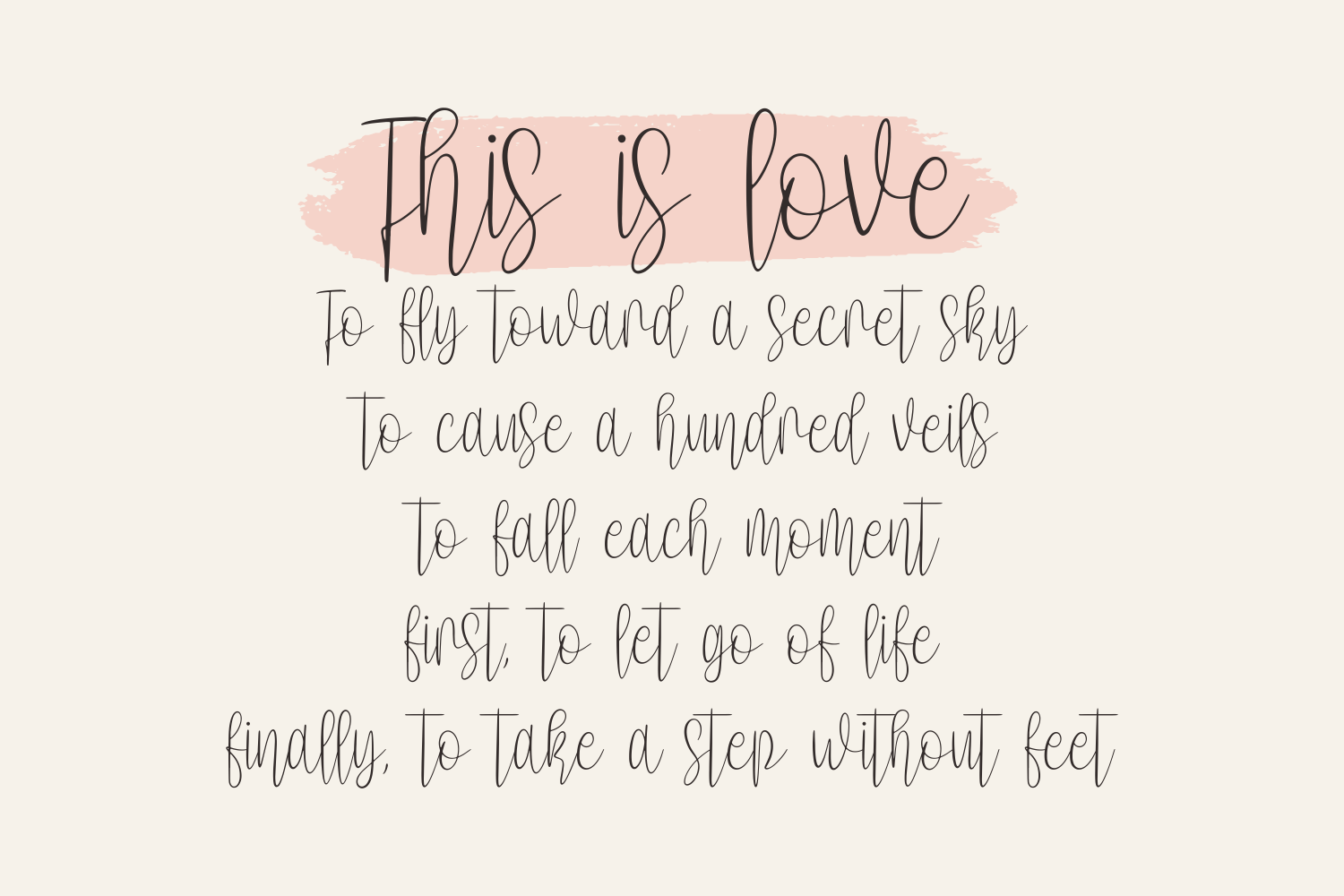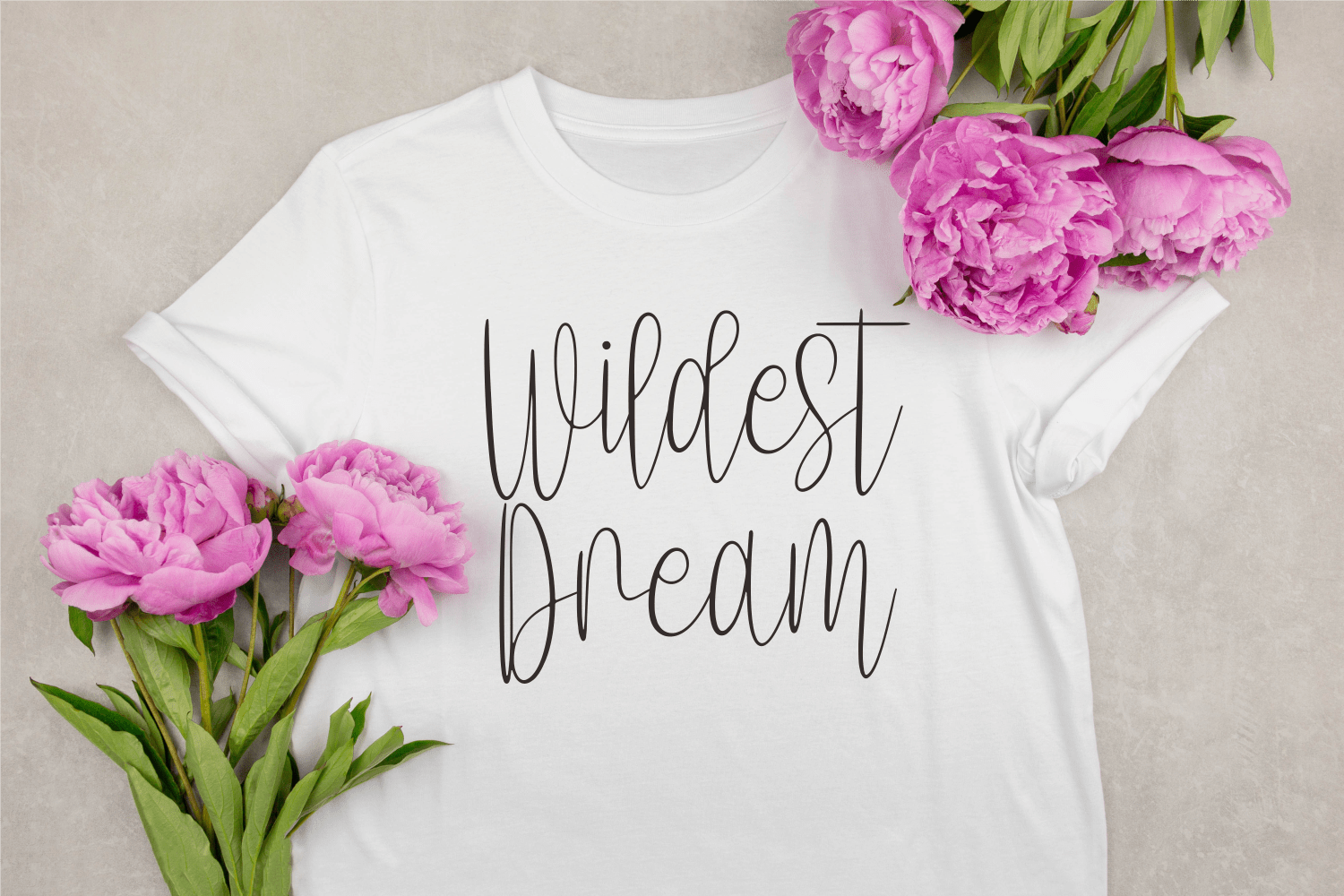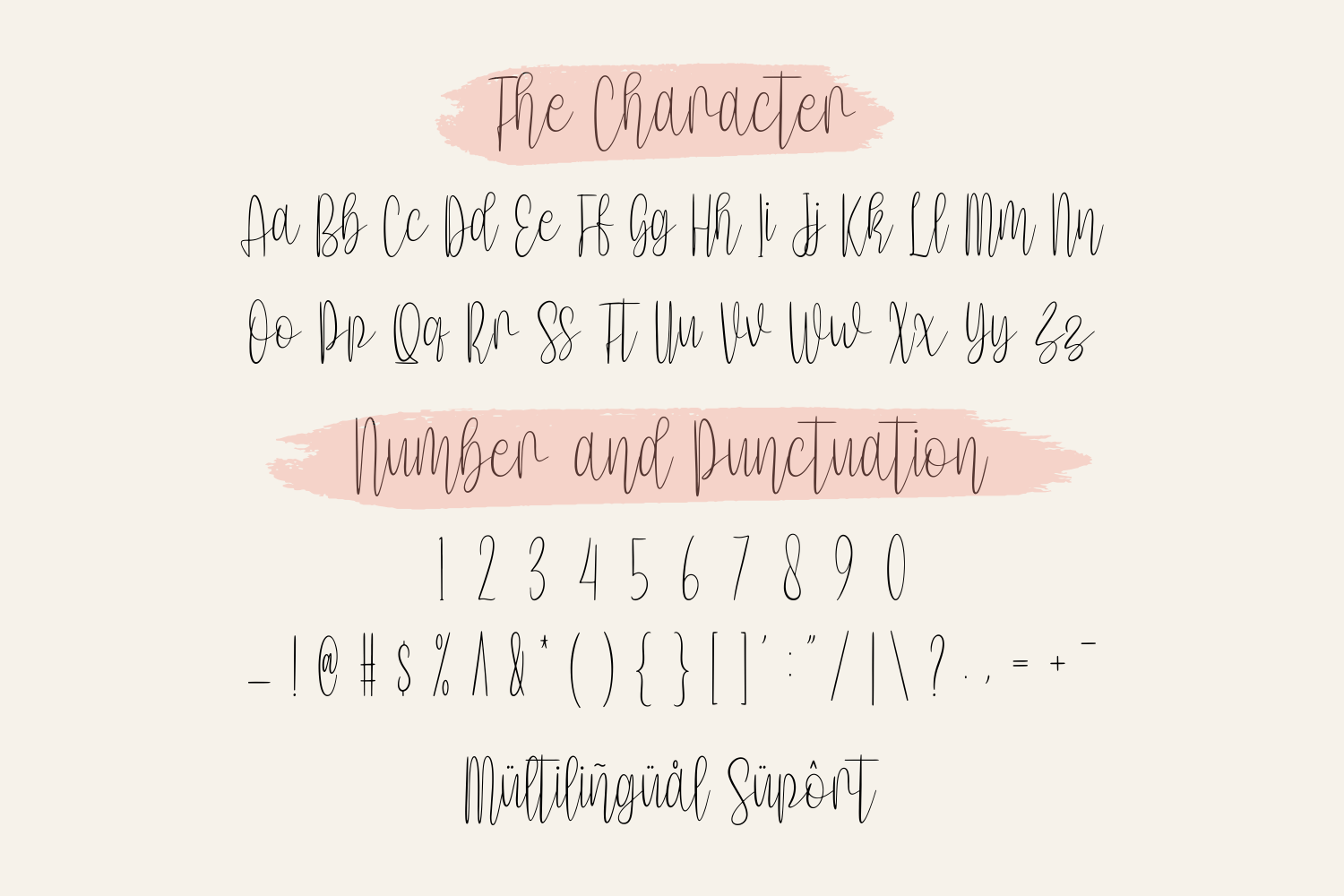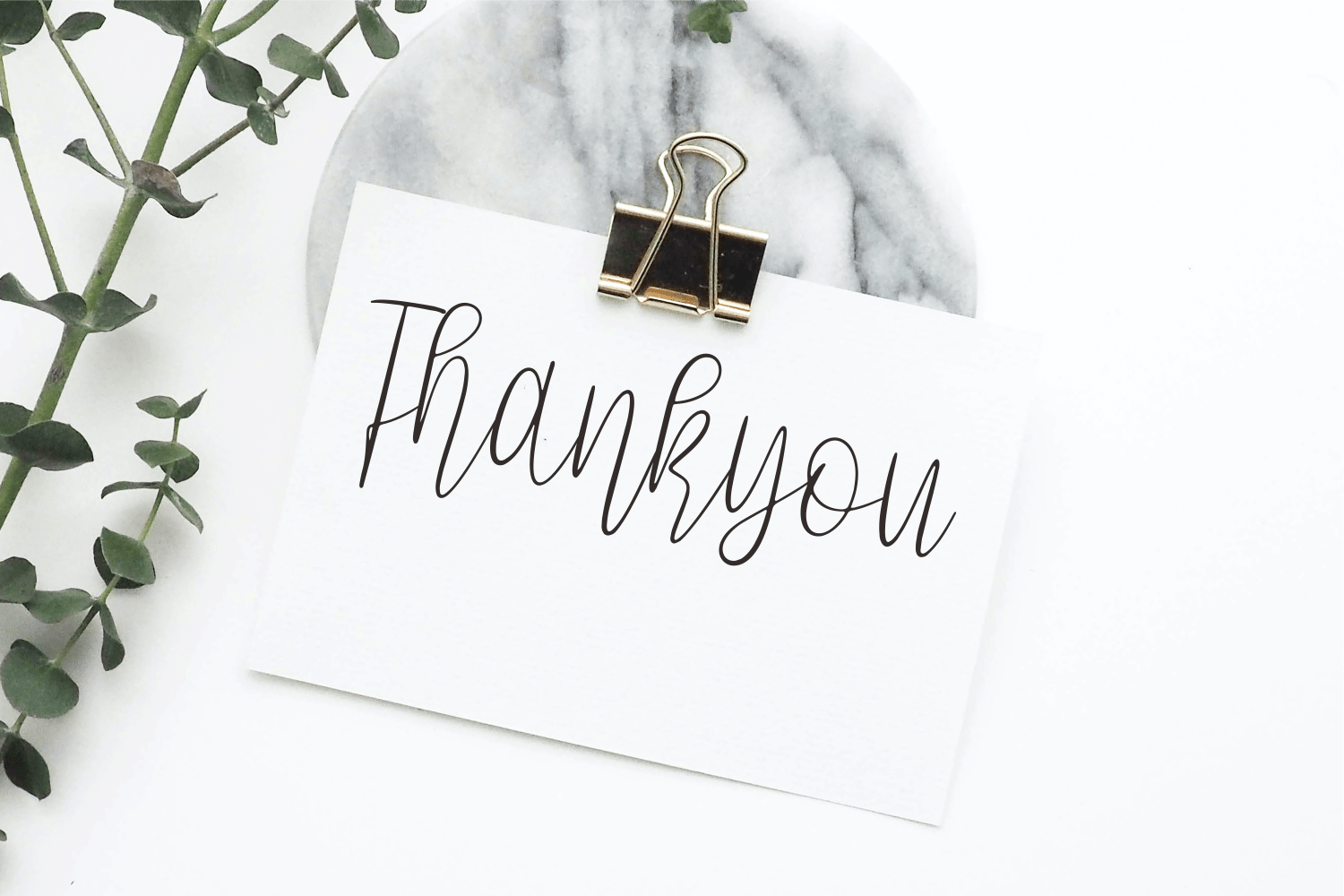
Olasido Sweet Font
Olasido Sweet Script Font is a delicate and stylish script font. It has well-balanced and cursive characters that will make your designs stand out. Use this font for your designs and explore its endless possibilities.